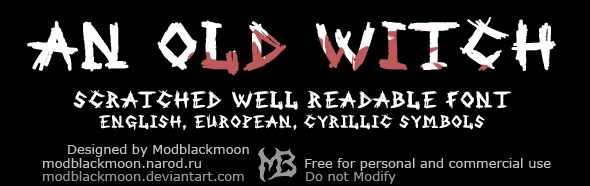
MB-An Old Witch by Mod Blackmoon is a free trash brush script with jagged, ink-heavy capitals and a restless handmade edge. Uneven stroke widths, blunt overlaps, and splintered ends make the lettering resemble hurried marks painted with a worn brush.
Horror and occult themes suit its raw shapes, making it useful for film posters, Halloween event graphics, game titles, and dark music merchandise. It is especially convincing on a witch-themed film poster.
The font includes English, European, and Cyrillic letters, as well as numbers.